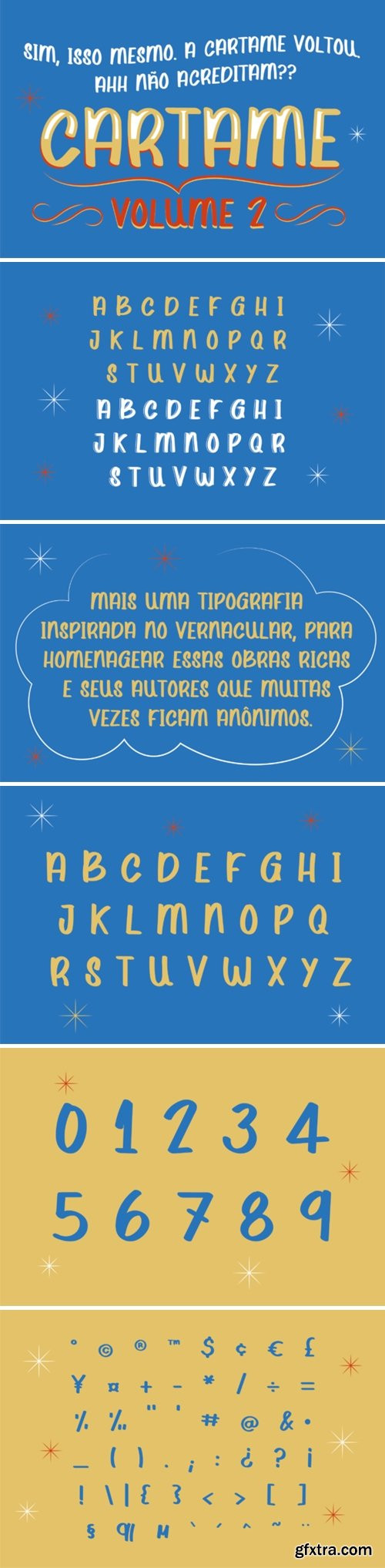
Cartame Font
Cartame FontCartame Volume 2 is a smooth and friendly handwritten font. Use this gorgeous and unique font to bring any DIY project to life!